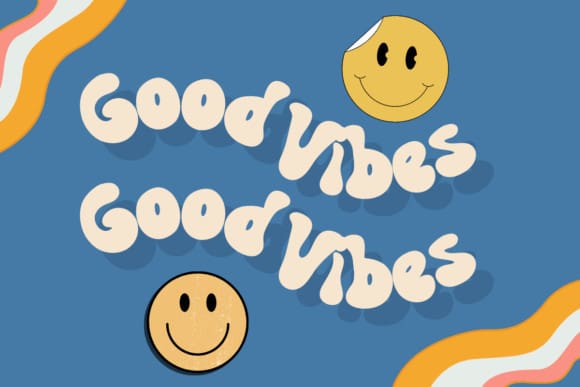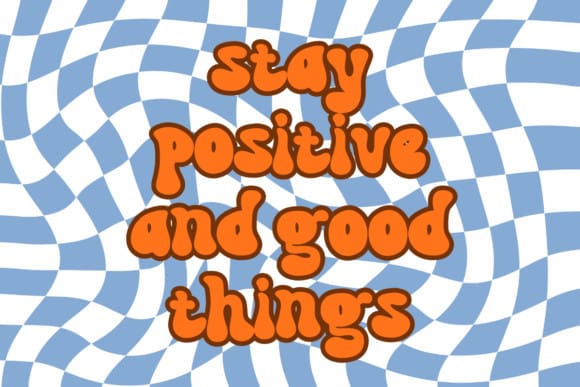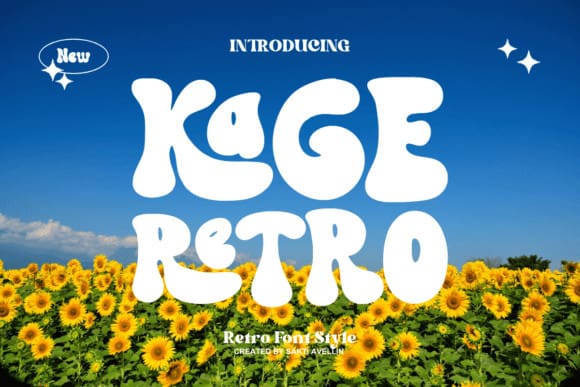
Kage Retro Font
Kage Retro Font is a Fun Groovy Retro Display that will make your designs look modern, quirky and fun. It’s perfect for quotes, posters, DIY projects, branding, packaging, greeting cards, websites, photographic overlays, signs, window art, scrapbooking, tags and more!